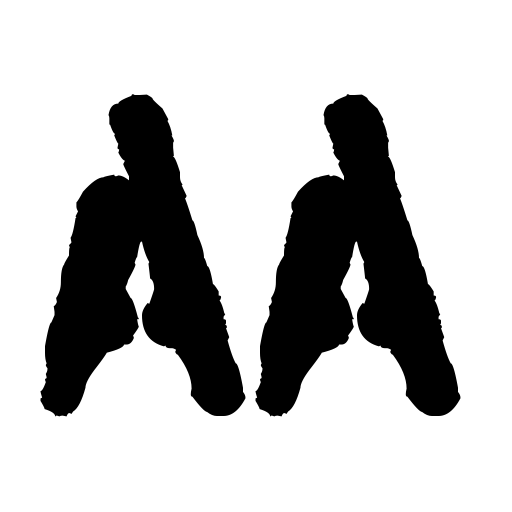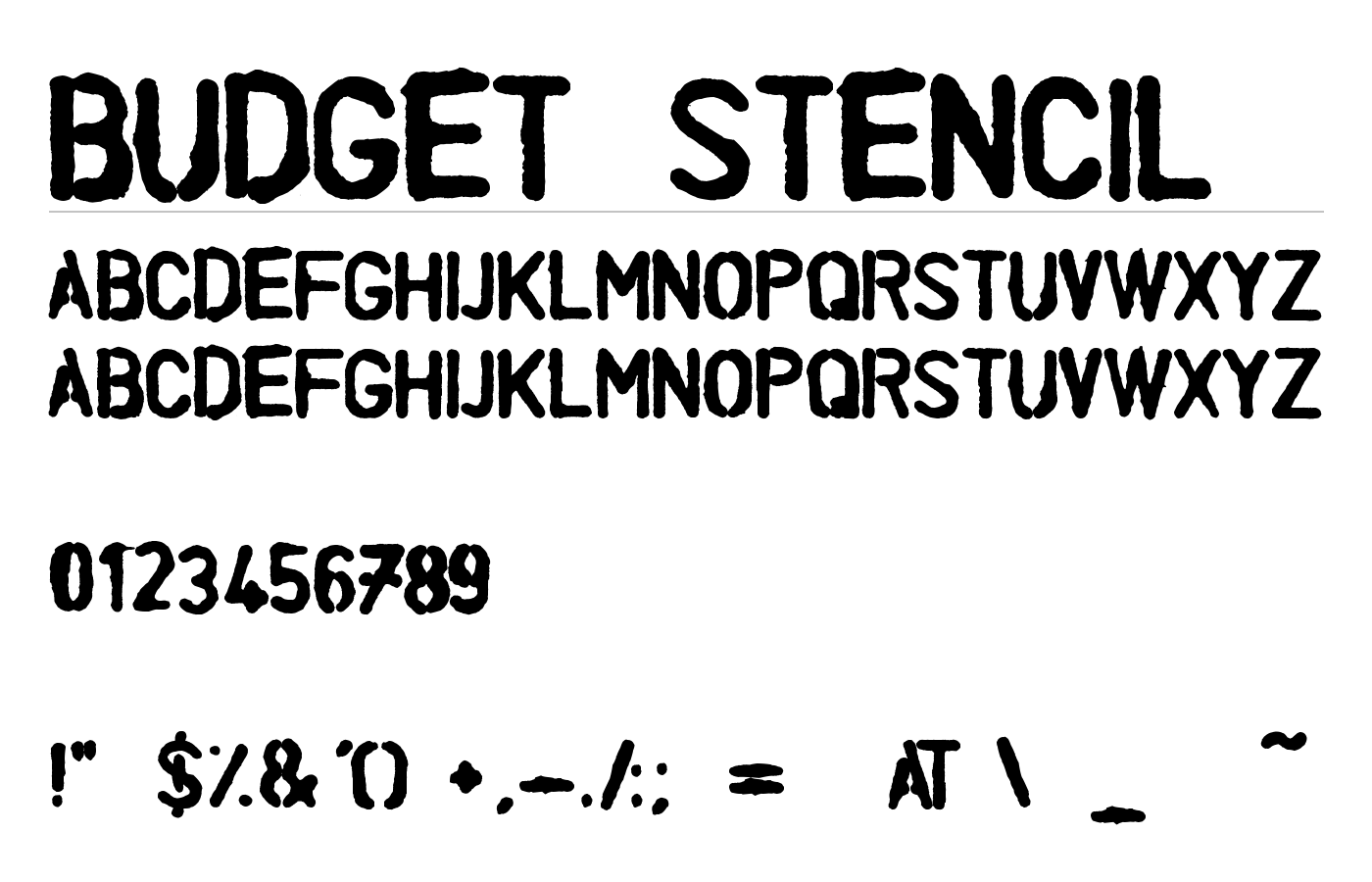
Budget Stencil is a bold, condensed sans serif font with a hand-crafted, rough stencil style that gives it a casual, utilitarian feel. Its irregular edges and solid, blocky letterforms make it ideal for attention-grabbing headlines, posters, and designs that want to convey a gritty, approachable vibe. This font works well for projects requiring a handmade, budget-friendly or industrial look without sacrificing readability.
Budget Stencil Font